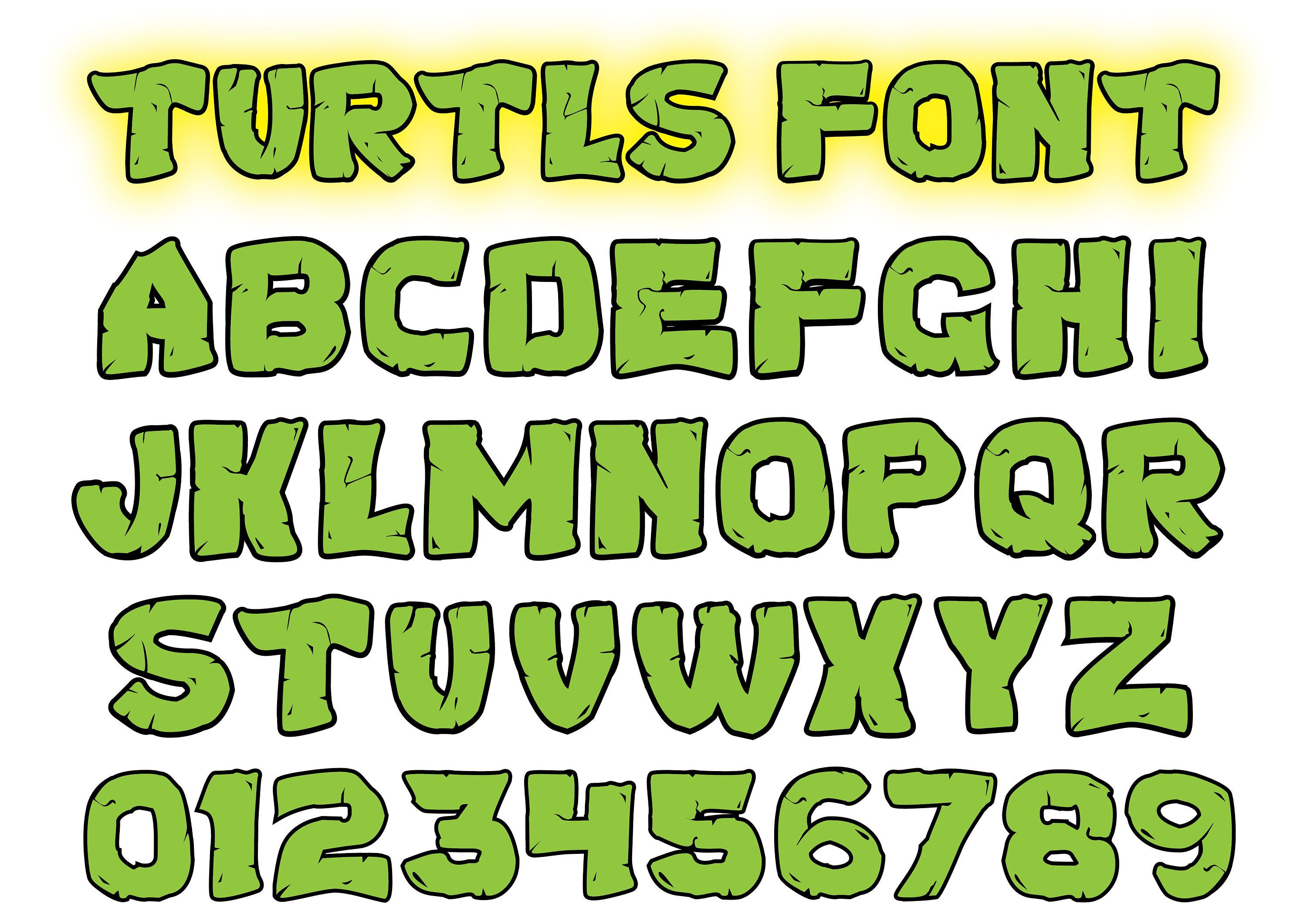
Tmnt Font Free
Tmnt Font Free - Teenage mutant ninja turtles, also known as tmnt, is a famous kids cartoon and movie series. Use the text generator below to convert your text into graphics online with tmnt font, you can then save the image or click on the embed button to get. This thick, distressed typeface is based on the popular clasic teenage mutant ninja turtles logo. Includes the euro, extended punctuation, and accent characters. Fans have recreated the fonts from the movies so you can generate your own turtle power letters. You can download the font for free here. Download the free font replicating elements of the teenage mutant ninja turtles logo and many more at the original famous fonts!
This thick, distressed typeface is based on the popular clasic teenage mutant ninja turtles logo. You can download the font for free here. Download the free font replicating elements of the teenage mutant ninja turtles logo and many more at the original famous fonts! Use the text generator below to convert your text into graphics online with tmnt font, you can then save the image or click on the embed button to get. Includes the euro, extended punctuation, and accent characters. Teenage mutant ninja turtles, also known as tmnt, is a famous kids cartoon and movie series. Fans have recreated the fonts from the movies so you can generate your own turtle power letters.
This thick, distressed typeface is based on the popular clasic teenage mutant ninja turtles logo. Download the free font replicating elements of the teenage mutant ninja turtles logo and many more at the original famous fonts! You can download the font for free here. Teenage mutant ninja turtles, also known as tmnt, is a famous kids cartoon and movie series. Fans have recreated the fonts from the movies so you can generate your own turtle power letters. Includes the euro, extended punctuation, and accent characters. Use the text generator below to convert your text into graphics online with tmnt font, you can then save the image or click on the embed button to get.
Teenage Mutant Ninja Turtles Logo Font
Includes the euro, extended punctuation, and accent characters. Download the free font replicating elements of the teenage mutant ninja turtles logo and many more at the original famous fonts! Teenage mutant ninja turtles, also known as tmnt, is a famous kids cartoon and movie series. This thick, distressed typeface is based on the popular clasic teenage mutant ninja turtles logo..
Includes the euro, extended punctuation, and accent characters. Download the free font replicating elements of the teenage mutant ninja turtles logo and many more at the original famous fonts! You can download the font for free here. Use the text generator below to convert your text into graphics online with tmnt font, you can then save the image or click.
You can download the font for free here. This thick, distressed typeface is based on the popular clasic teenage mutant ninja turtles logo. Includes the euro, extended punctuation, and accent characters. Fans have recreated the fonts from the movies so you can generate your own turtle power letters. Teenage mutant ninja turtles, also known as tmnt, is a famous kids.
Download the free font replicating elements of the teenage mutant ninja turtles logo and many more at the original famous fonts! Use the text generator below to convert your text into graphics online with tmnt font, you can then save the image or click on the embed button to get. Fans have recreated the fonts from the movies so you.
Includes the euro, extended punctuation, and accent characters. Teenage mutant ninja turtles, also known as tmnt, is a famous kids cartoon and movie series. You can download the font for free here. This thick, distressed typeface is based on the popular clasic teenage mutant ninja turtles logo. Use the text generator below to convert your text into graphics online with.
Download the free font replicating elements of the teenage mutant ninja turtles logo and many more at the original famous fonts! Teenage mutant ninja turtles, also known as tmnt, is a famous kids cartoon and movie series. Fans have recreated the fonts from the movies so you can generate your own turtle power letters. This thick, distressed typeface is based.
Use the text generator below to convert your text into graphics online with tmnt font, you can then save the image or click on the embed button to get. Download the free font replicating elements of the teenage mutant ninja turtles logo and many more at the original famous fonts! Teenage mutant ninja turtles, also known as tmnt, is a.
Teenage mutant ninja turtles, also known as tmnt, is a famous kids cartoon and movie series. You can download the font for free here. Use the text generator below to convert your text into graphics online with tmnt font, you can then save the image or click on the embed button to get. Includes the euro, extended punctuation, and accent.
You can download the font for free here. Use the text generator below to convert your text into graphics online with tmnt font, you can then save the image or click on the embed button to get. Includes the euro, extended punctuation, and accent characters. Fans have recreated the fonts from the movies so you can generate your own turtle.
This Thick, Distressed Typeface Is Based On The Popular Clasic Teenage Mutant Ninja Turtles Logo.